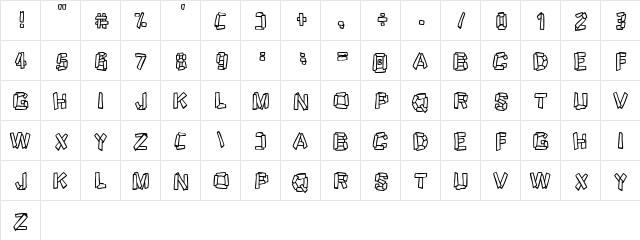
Funky Stoneage Regular
Design Context for Funky Stoneage Typeface
Funky Stoneage has an approachable, lighthearted character — its loose, expressive forms are well-suited to children's content, casual branding, and fun-first design.
Font Pairing: Pairs well with a rounded or humanist sans for body copy, maintaining the friendly tone without relying on Funky Stoneage to carry extended reading.
Pro Tip: Avoid using Funky Stoneage for long passages of text — it works best for headlines, labels, and short calls to action.